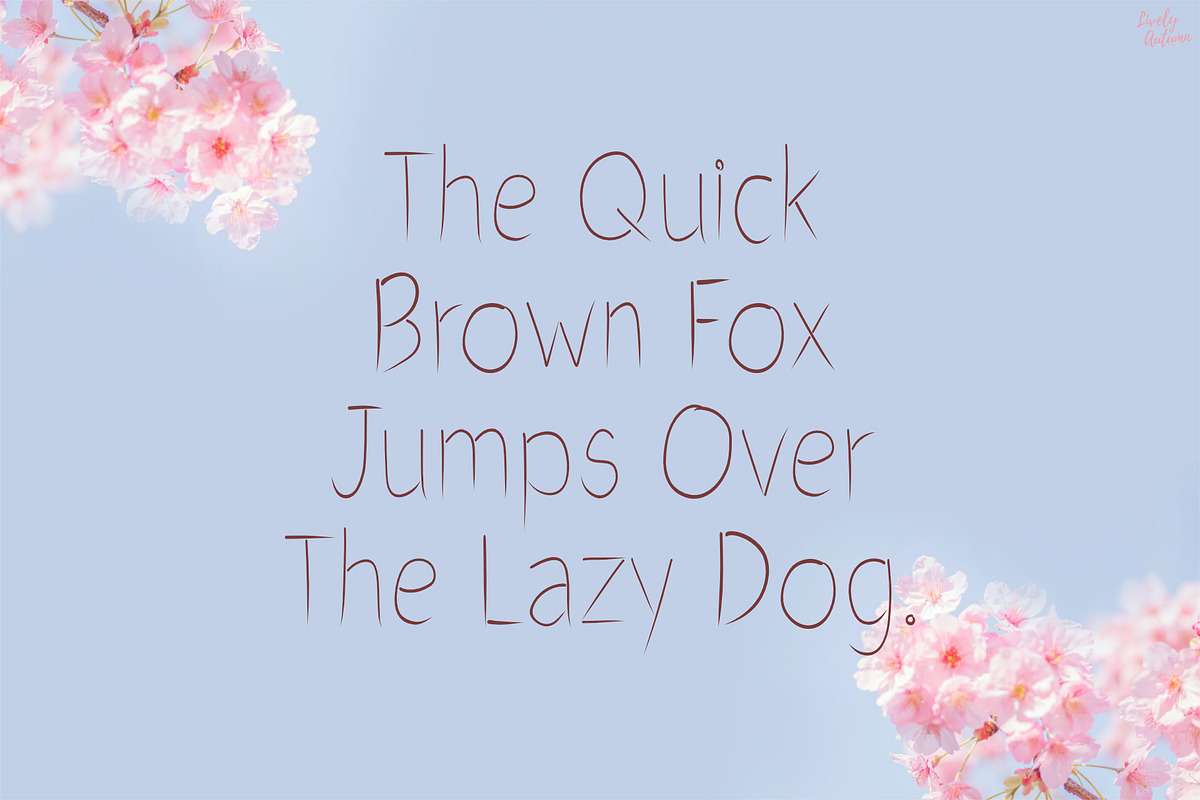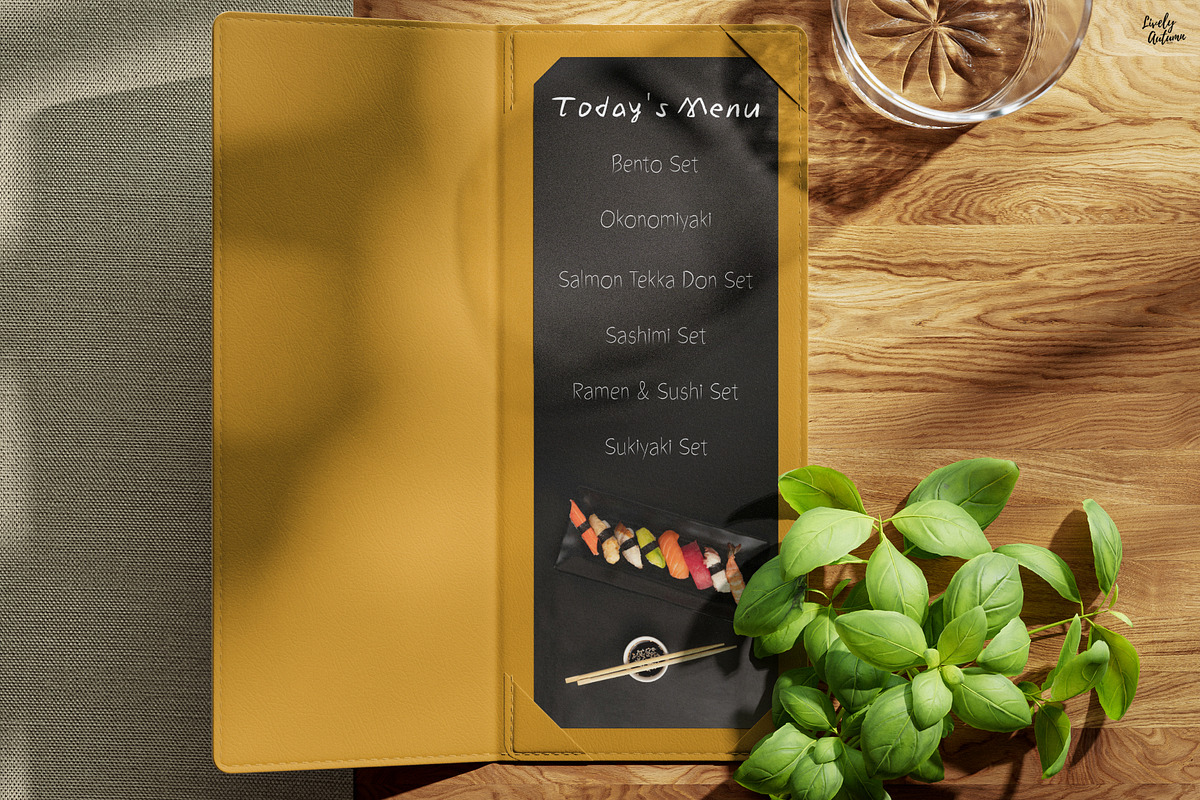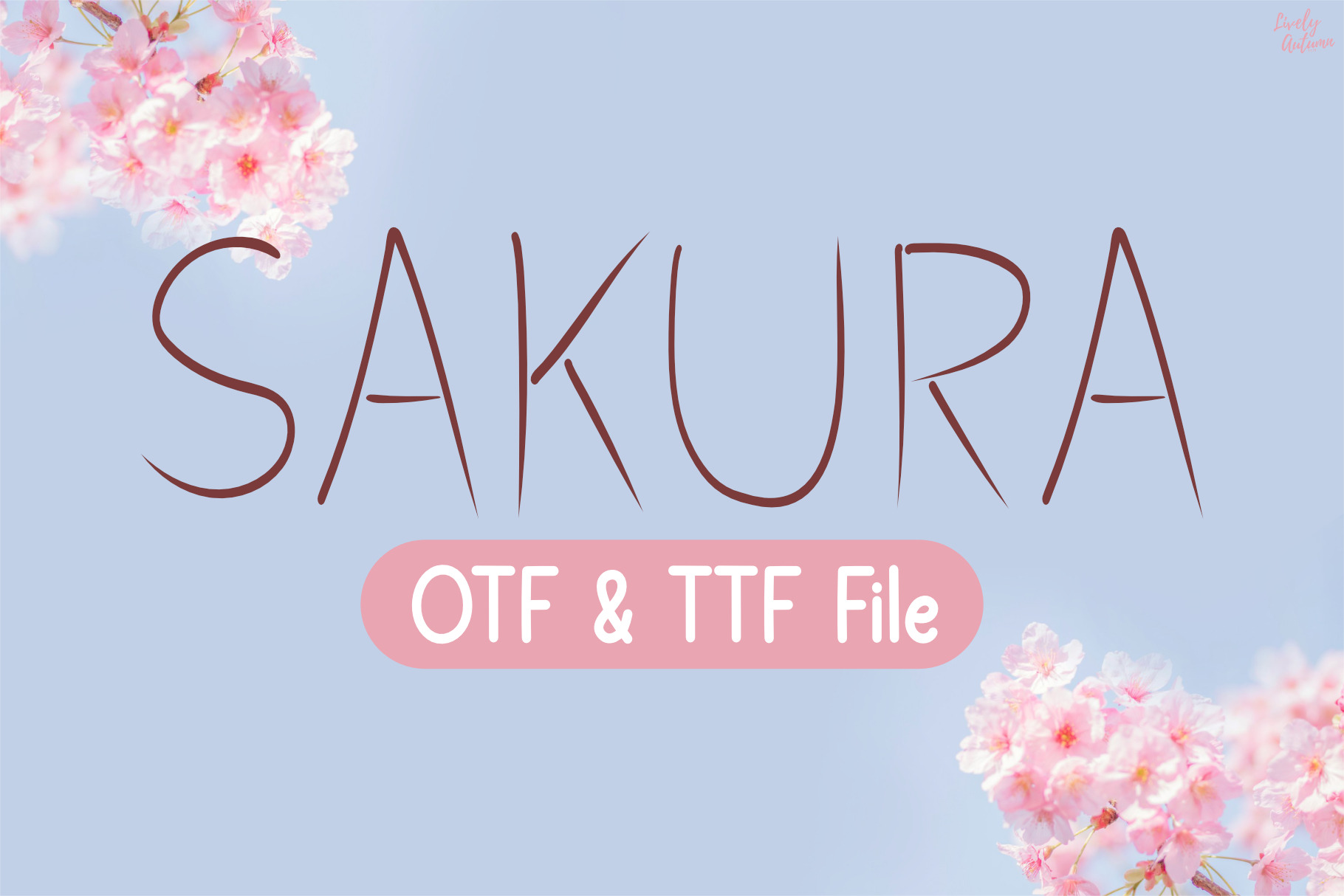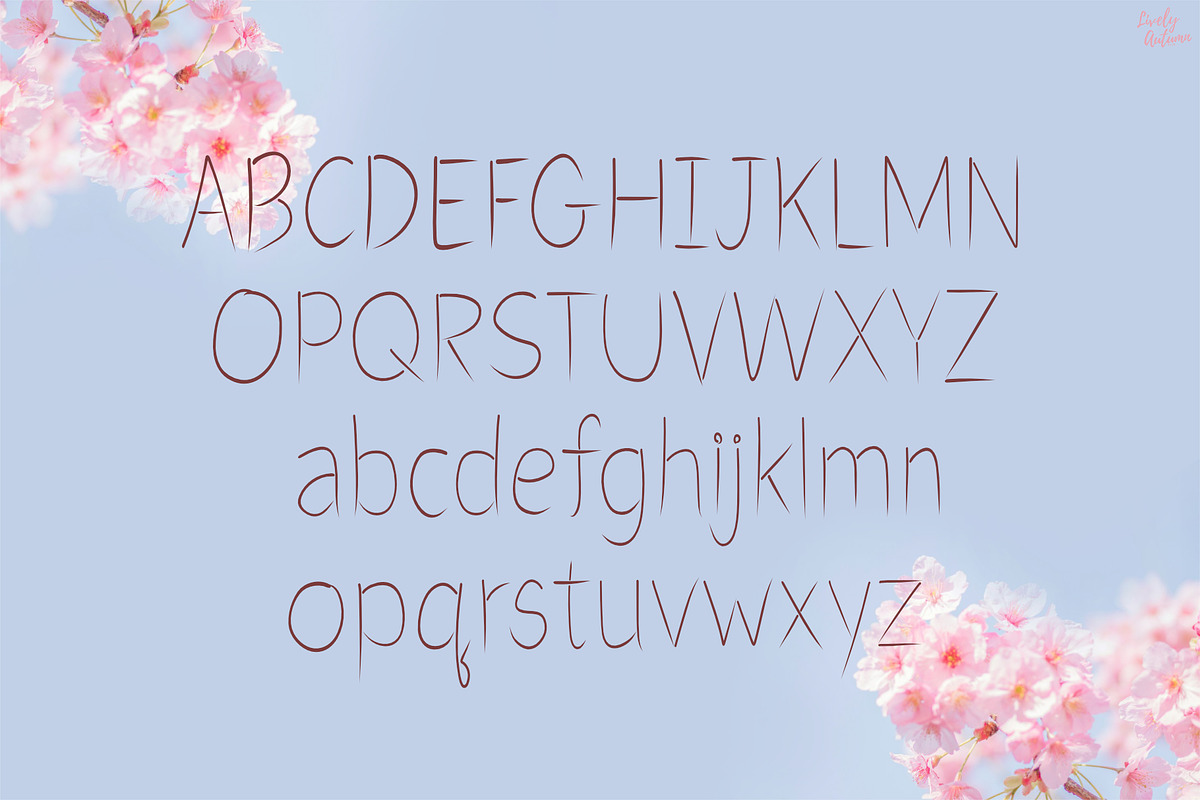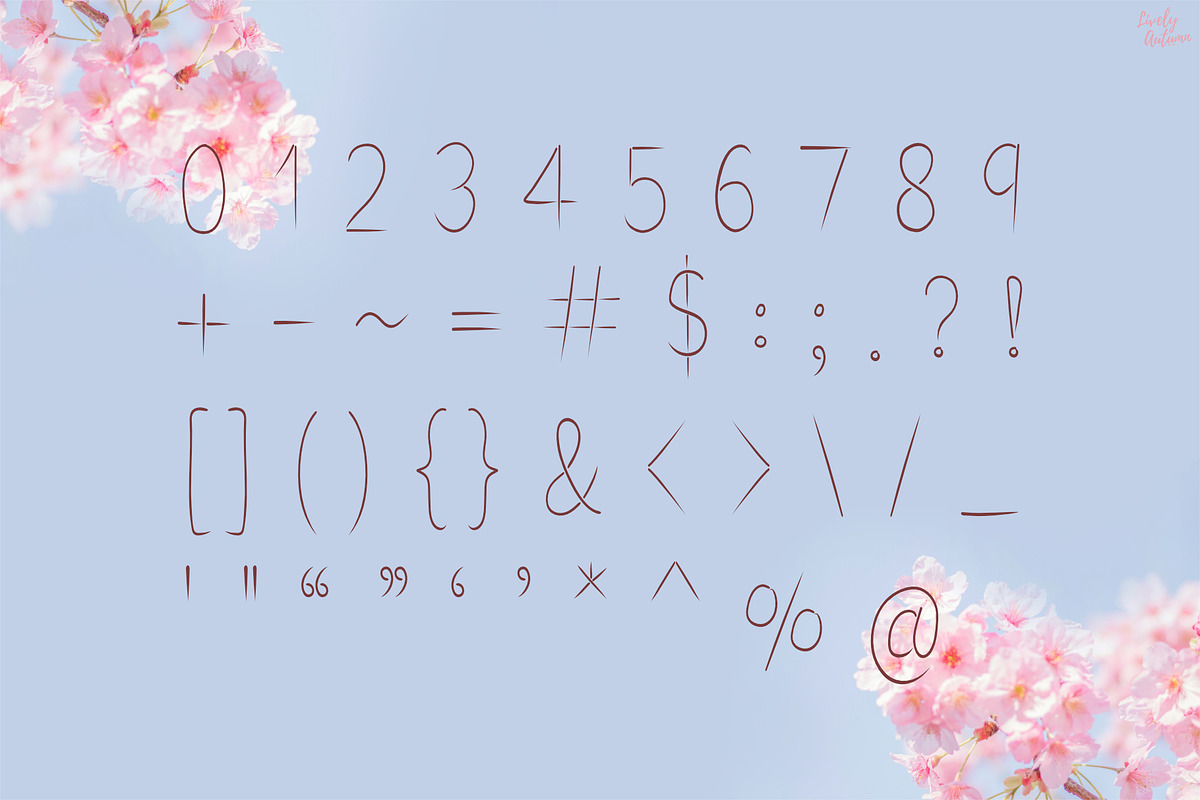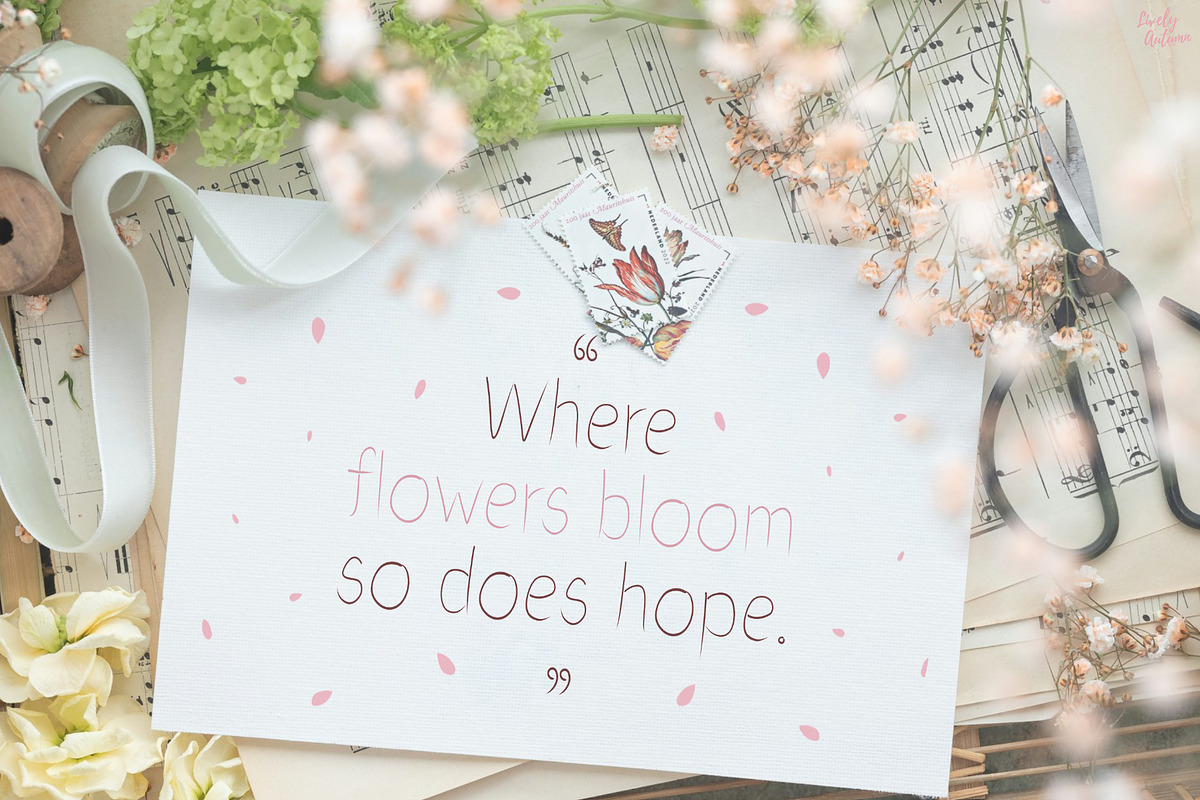
Sakura | Handwriting font
Sakura Font is a thin handwriting font in Asian style. Perfect for your personal projects and various project. From invitations to posters, social media graphics, journals, greeting cards, and much more.